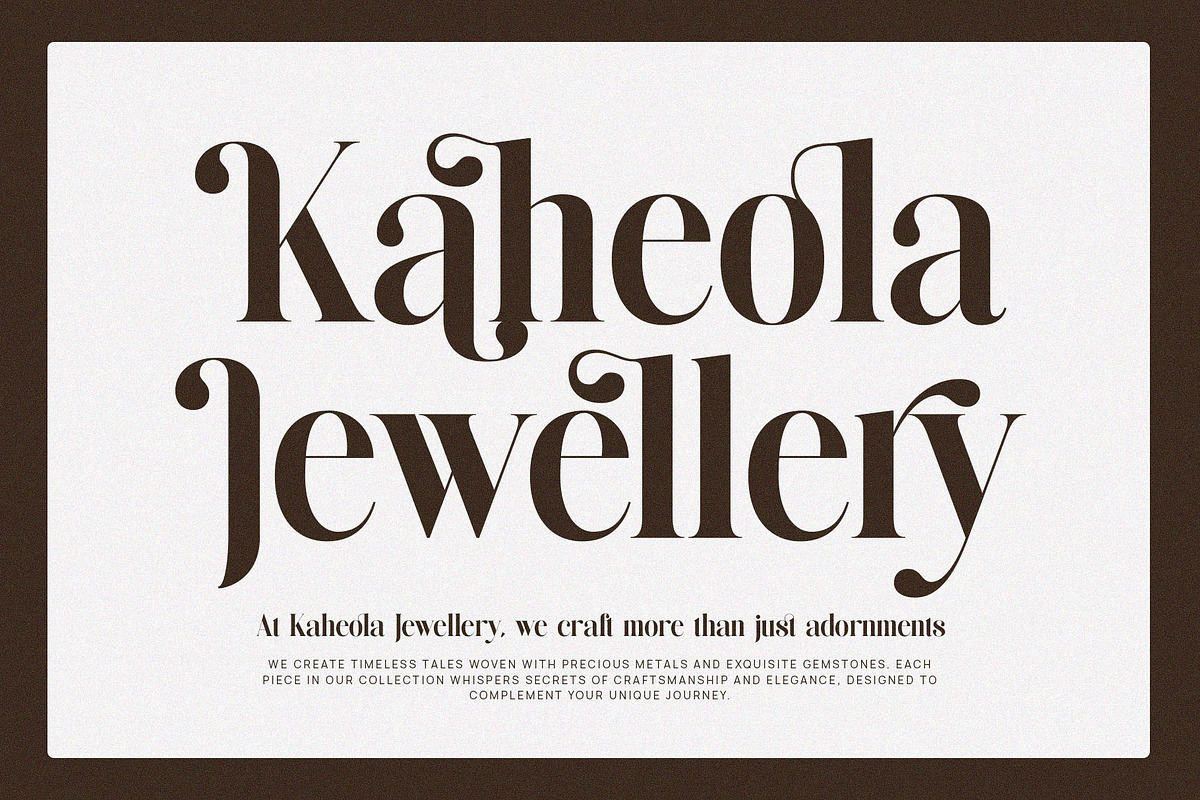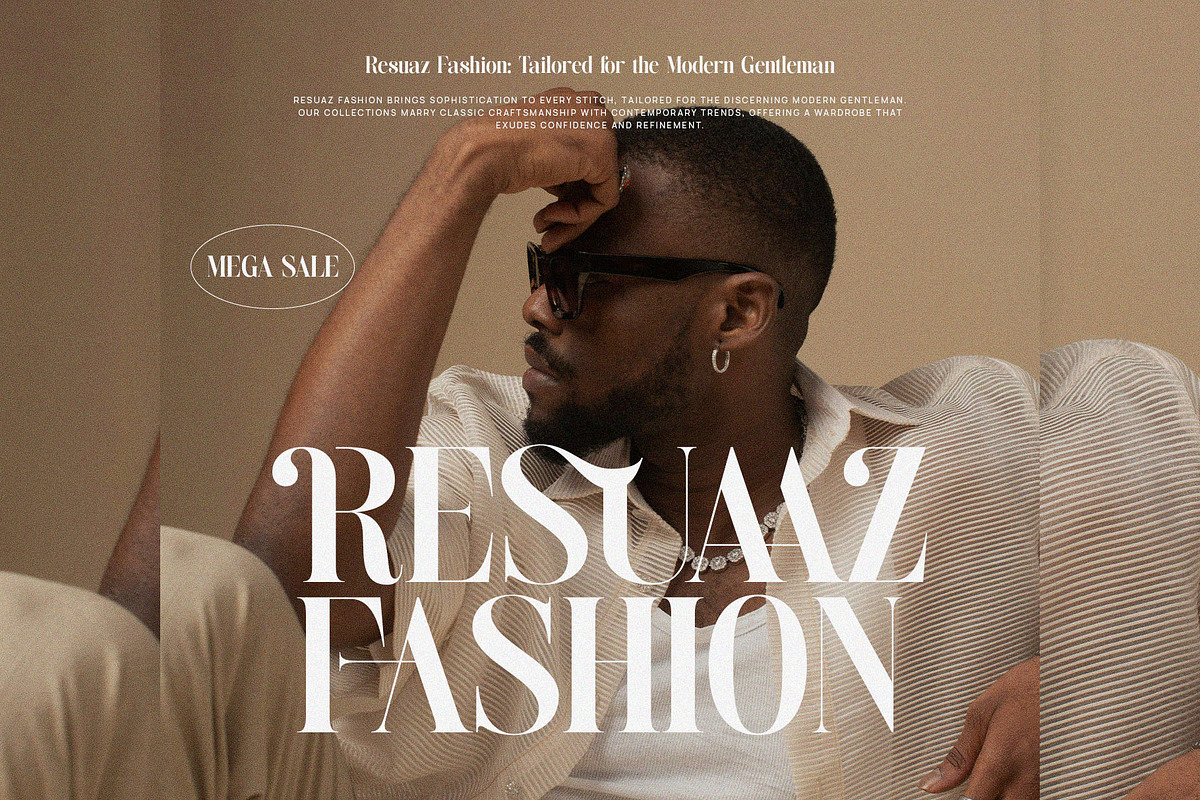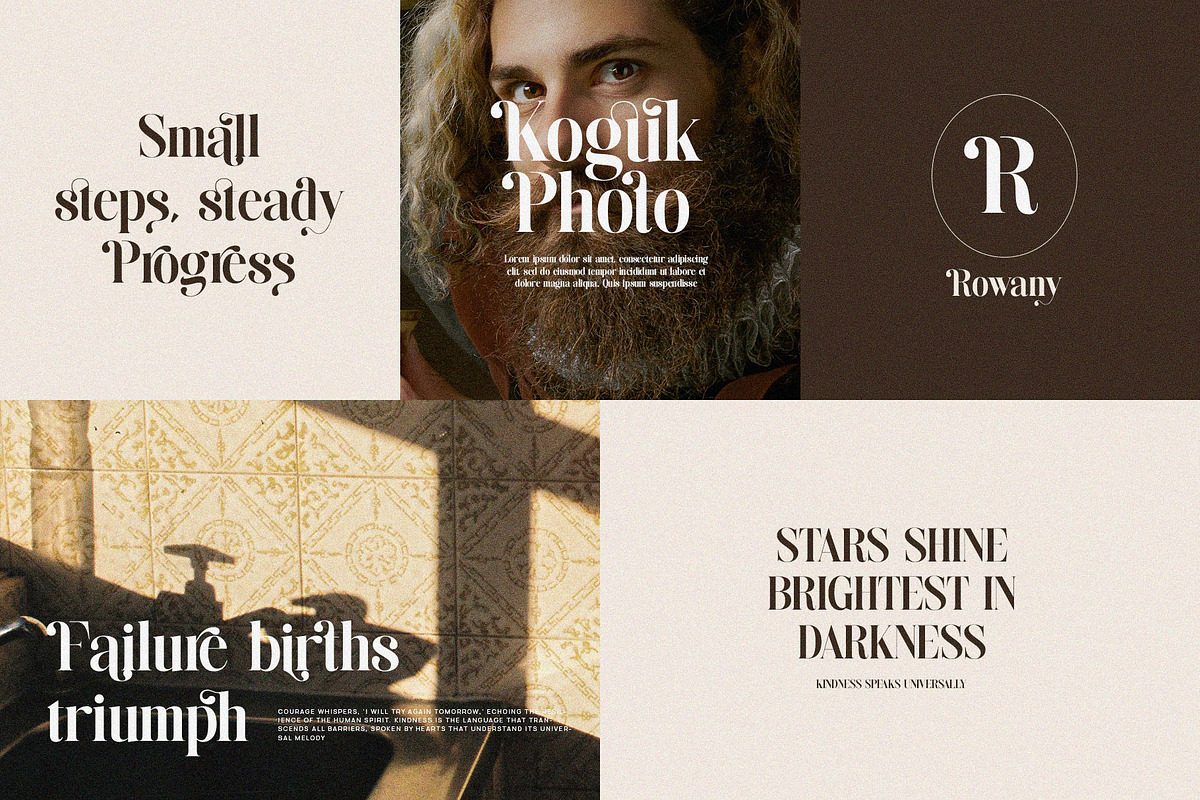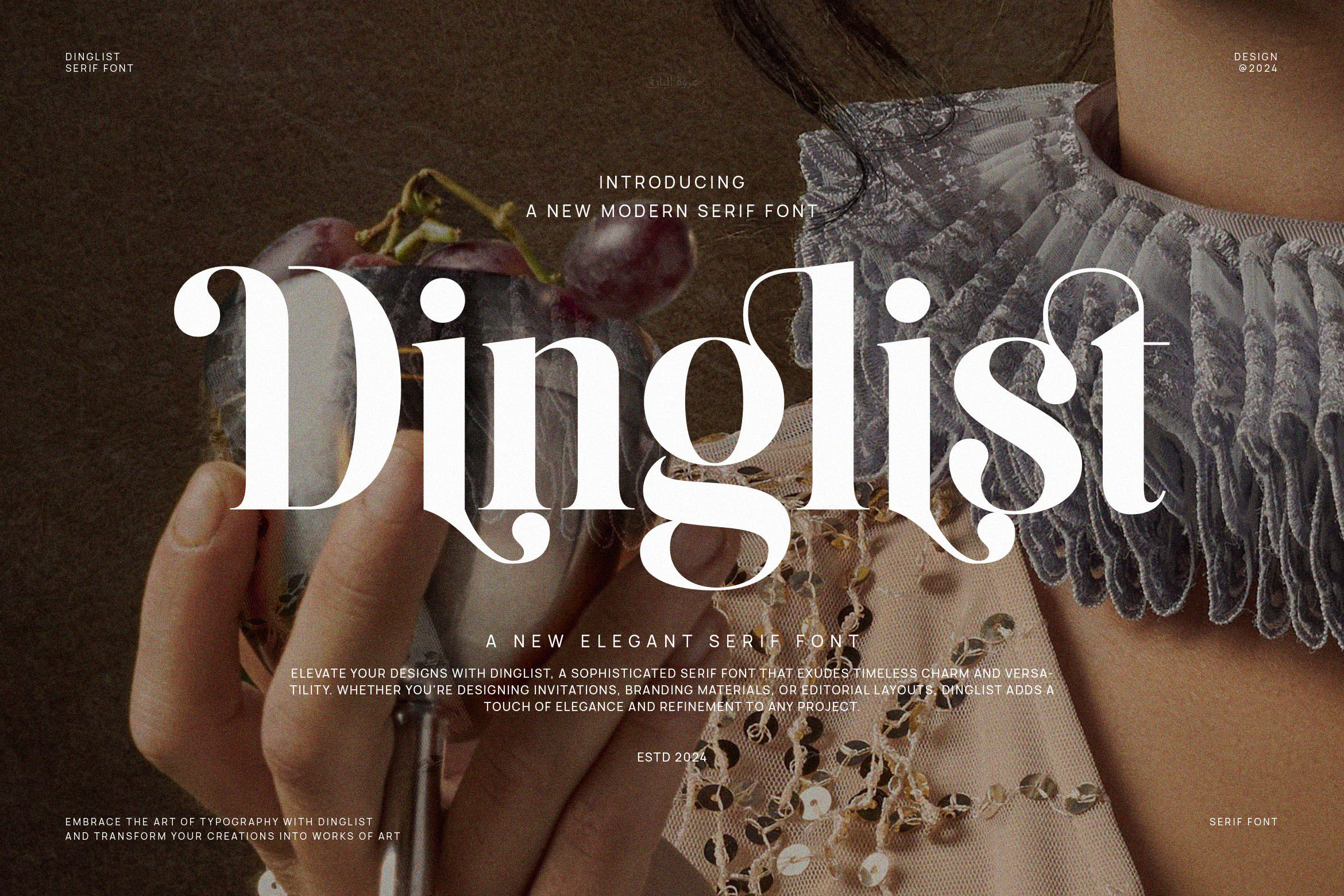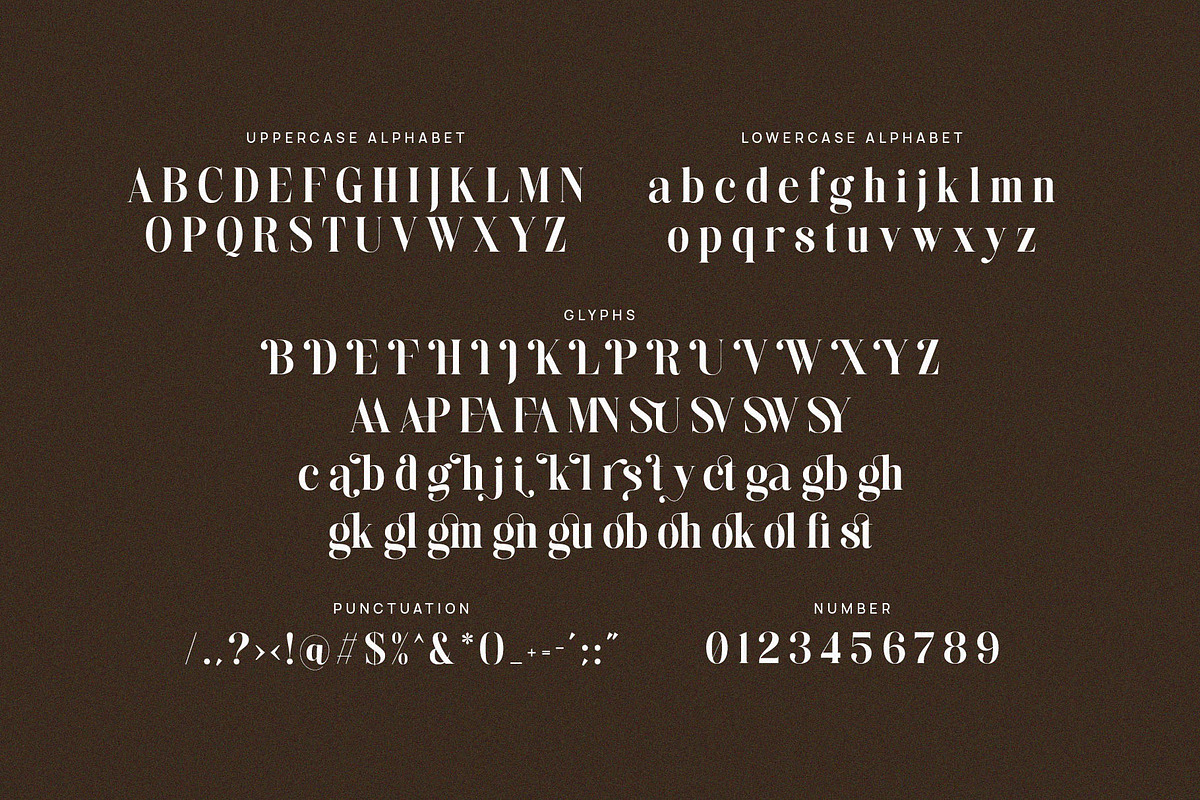
Dinglist - Elegant Serif Font
Introducing our new Dinglist, modern serif font with elegant style this is perfect for branding, logos, invitation, magazines, product packaging and more.